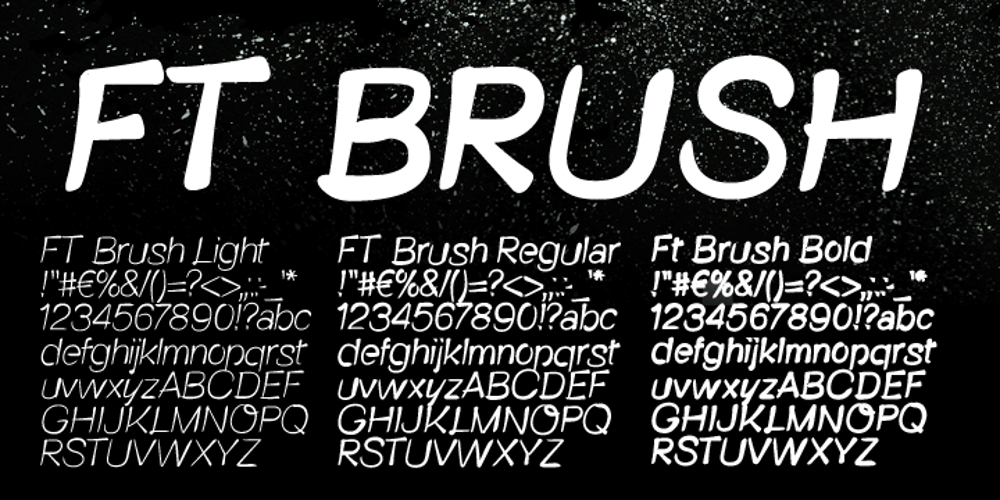
FT Brush Font Family was designed by Emil Karl Bertell and published by Fenotype. FT Brush contains 3 styles and family package options. FT Brush is a calligraphy style font family of three members – light, regular & bold. Combine different cuts for vivid outcome.